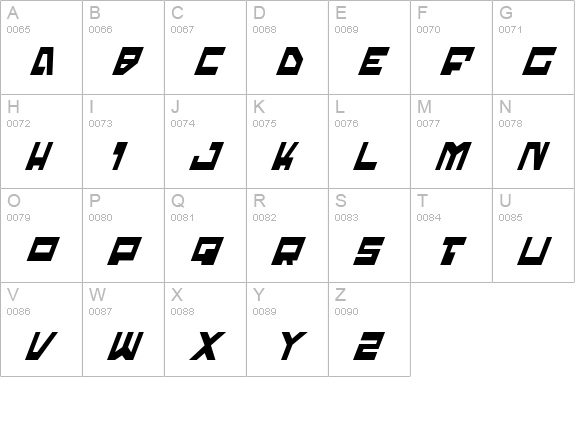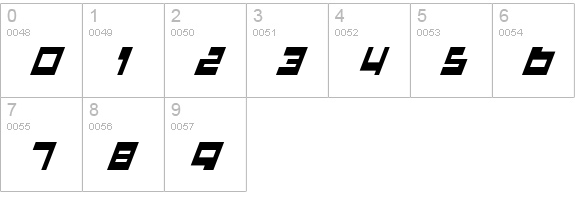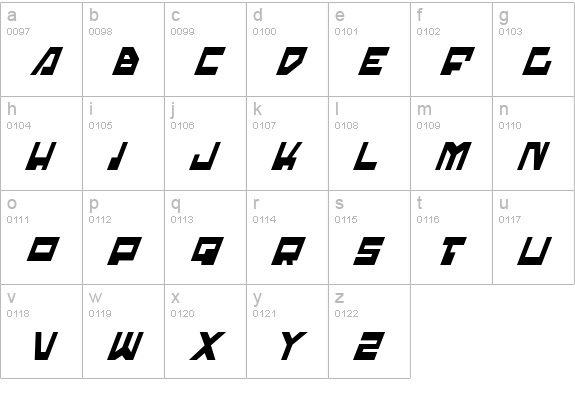
Trajia Condensed Italic is a distinctive, condensed-width, italic variant in the Trajia typeface family \xE2\x80\x94 well suited to design and typography projects.
Trajia Condensed Italic is a sleek and modern font that exudes elegance and sophistication. Its refined and slender design adds a touch of sophistication to any project, making it perfect for professional documents, branding materials, and more. The italic style of the font adds a dynamic and stylish flair to your text, making it stand out beautifully. Best of all, Trajia Condensed Italic is available for free download at FontsMarket.com. Whether you're working on a personal project or a professional endeavor, this font is a fantastic choice to elevate your design and make a lasting impression. Don't miss out on the opportunity to enhance your work with this stunning typeface, download Trajia Condensed Italic today!